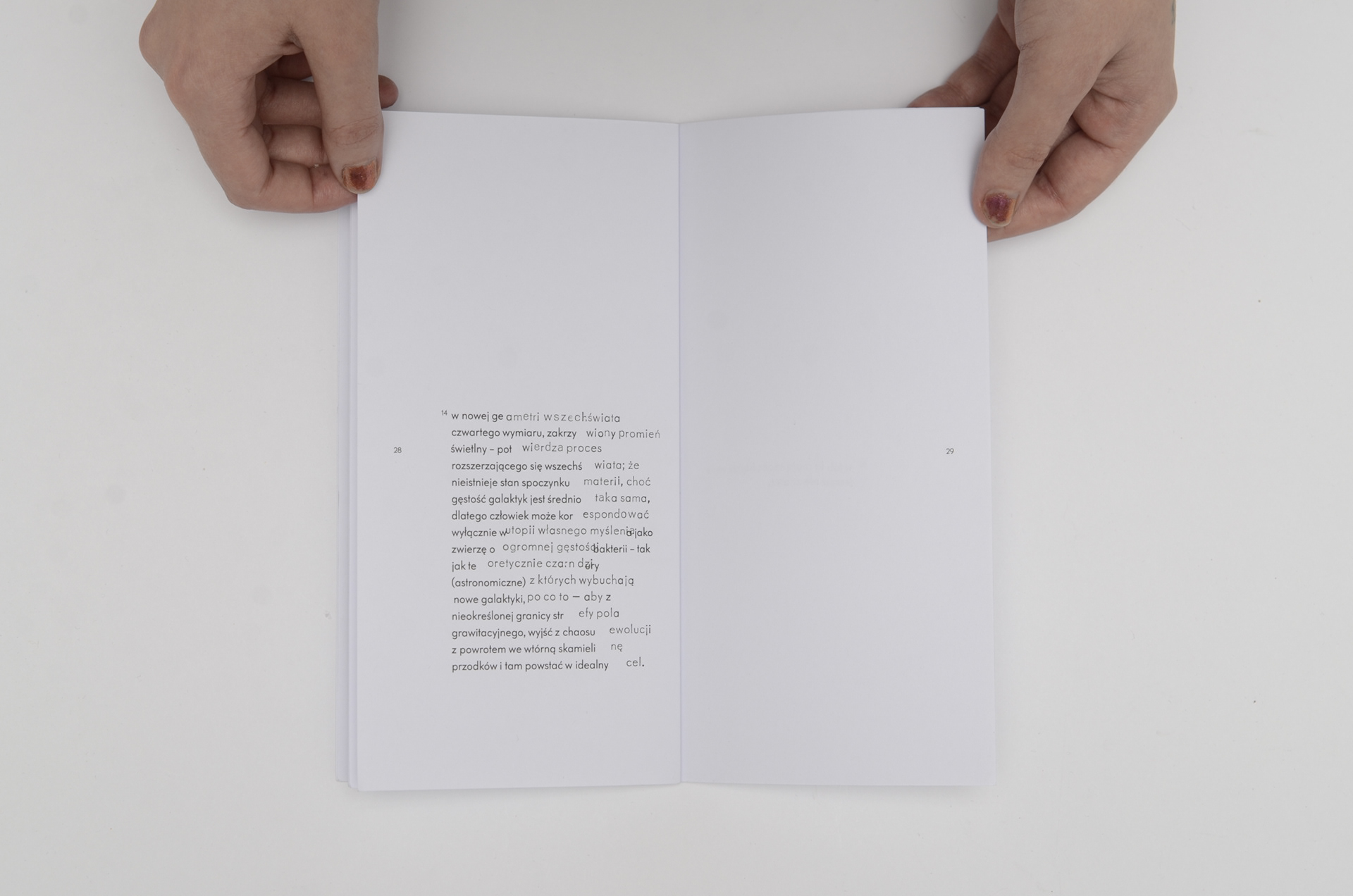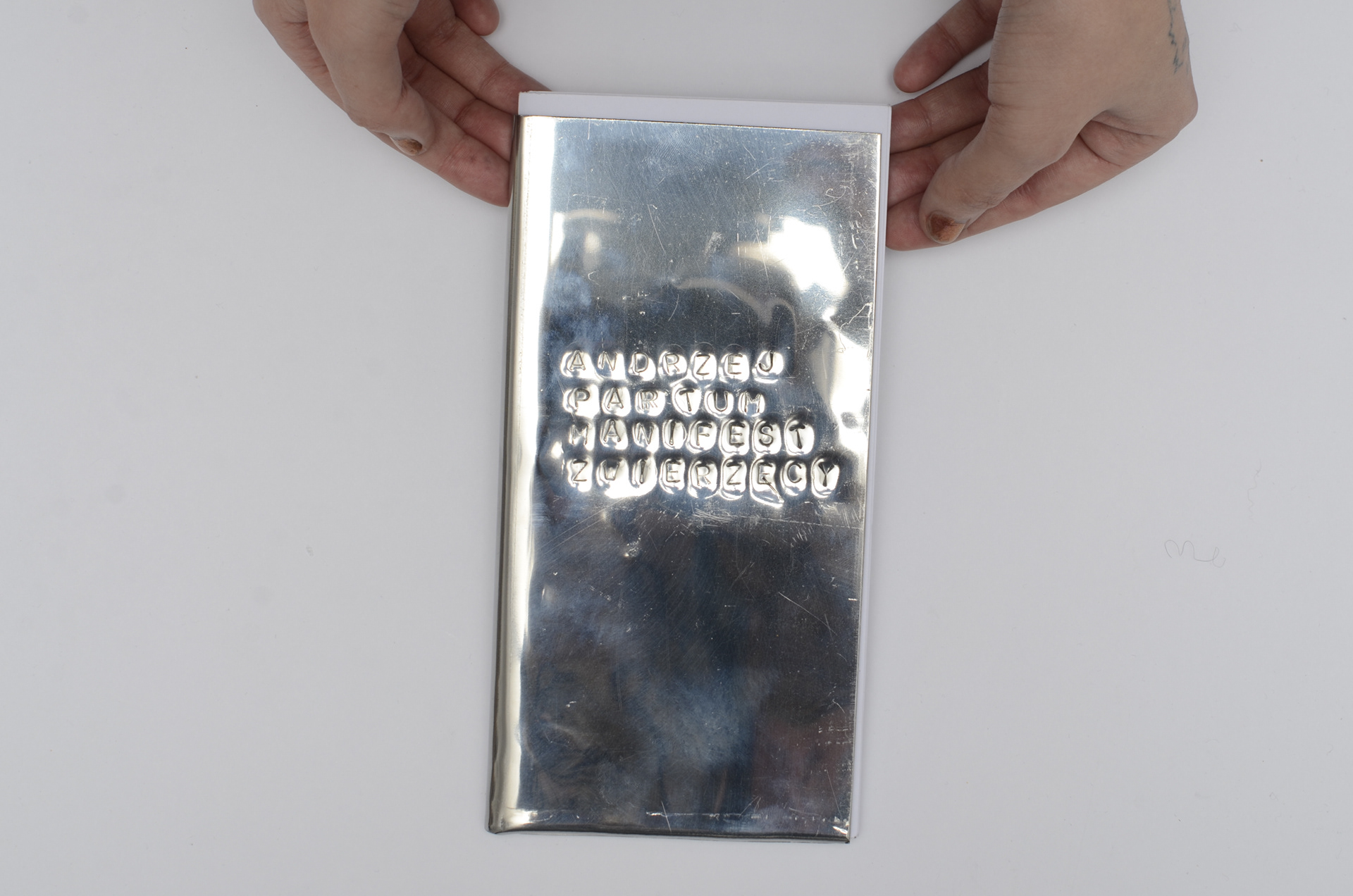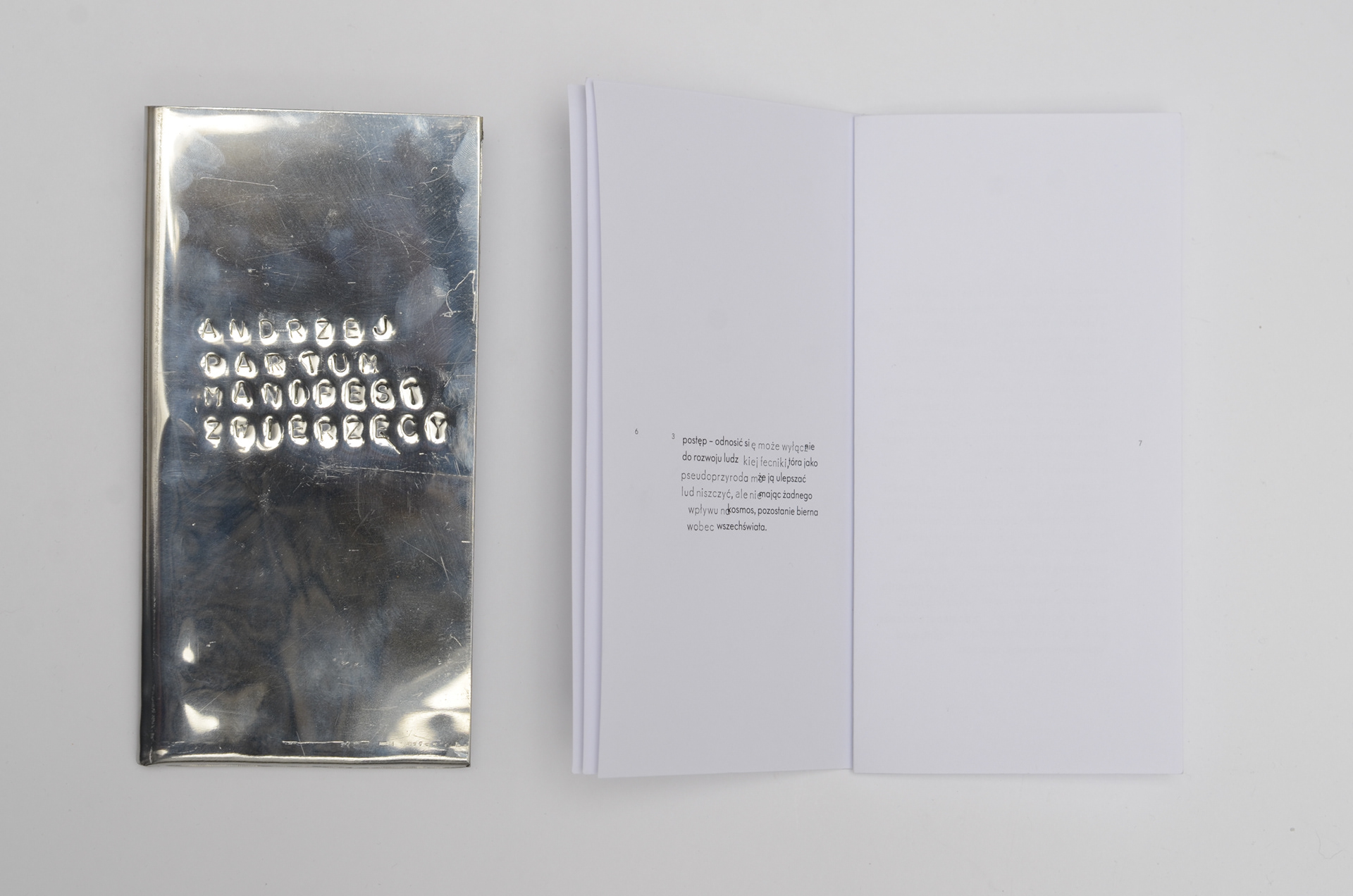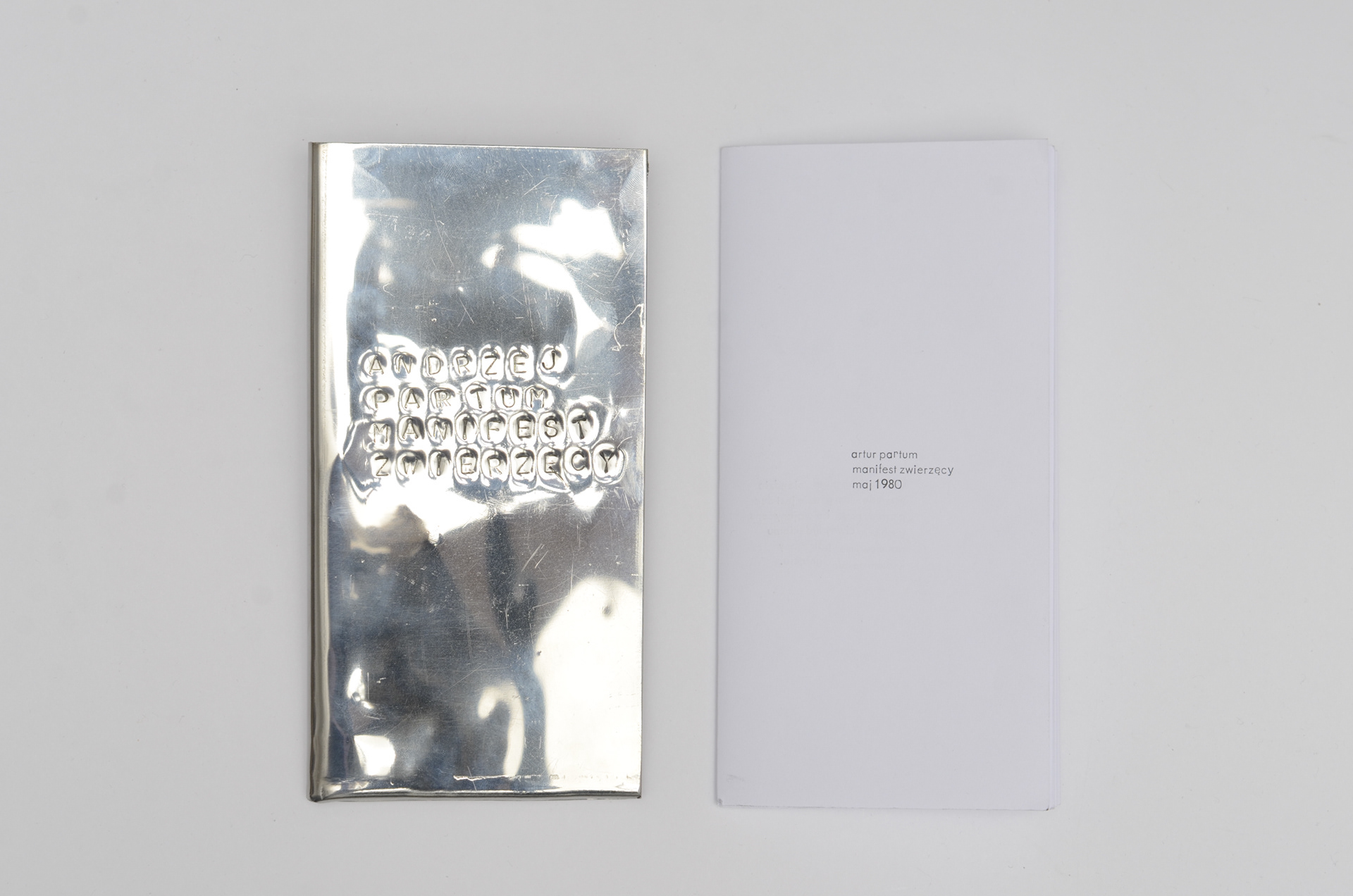
title: Manifest Zwierzęcy/Animal Manifesto
author: Andrzej Partum
description: In the Animal Manifesto, the author explores the instinctive side of humans and their tendency to build a mechanised, systematised environment around themselves. My publication is an attempt to create a relationship between text recorded in various ways. Systems that were designed to produce identical results each time, when touched by the human hand, take on something of its organic nature.